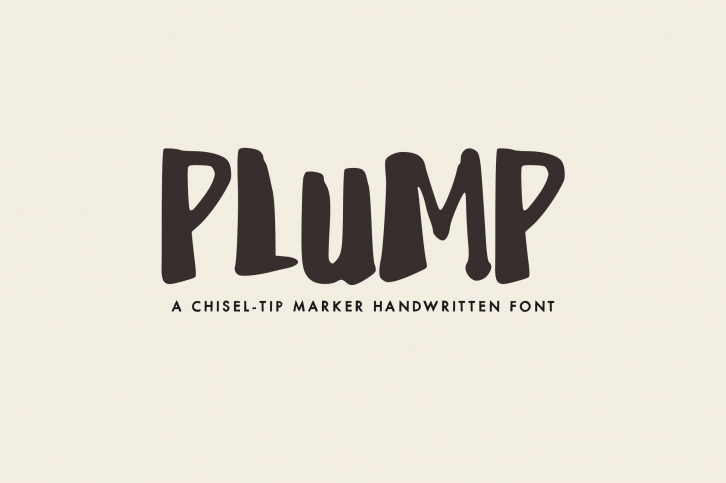
Plump is a great font that was designed by Mikko Sumulong. Imagine the amount of combinations you can create using this font! The archive is 14.17 MB and it was released on July 22, 2018. Plump looks beautiful on wedding invitations, greeting cards, logos, posters, labels, t-shirt designs, logos, business cards and is perfect for use in ink or watercolor works, fashion, magazines, packaging and food menus, children's books and more!